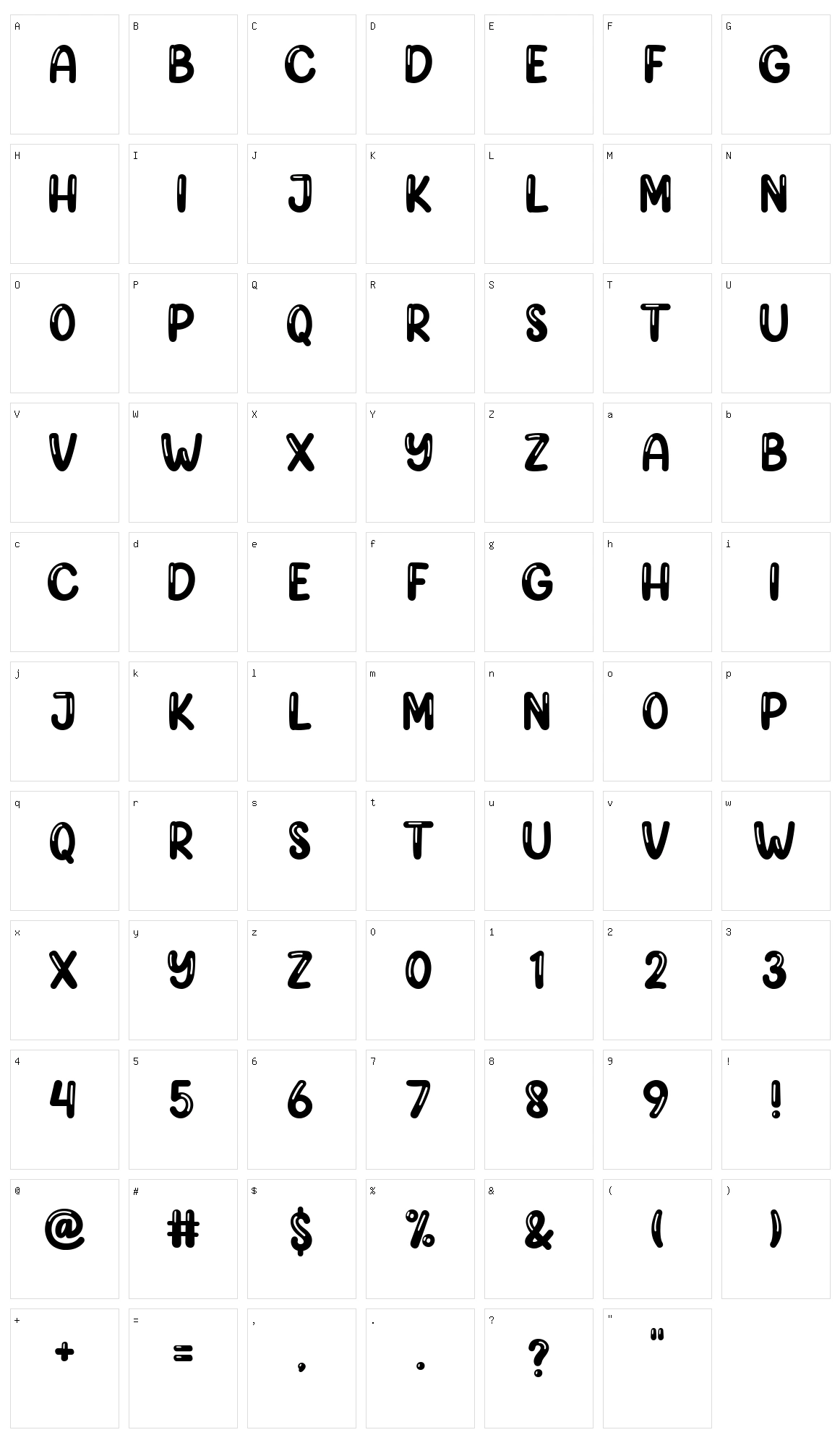
The free font Cuties Rabbits is carefully designed by Manjali Studio, showcasing a thoughtful balance of creativity and usability and falls under the Cartoon font style. When you download the ZIP file, it contains only 56.94 KB of font files, making it lightweight and quick to download. Please review the license details below to understand permitted usage and distribution rights. If license information is not available, we recommend using this font for personal projects only or contacting the author directly for commercial usage permissions.